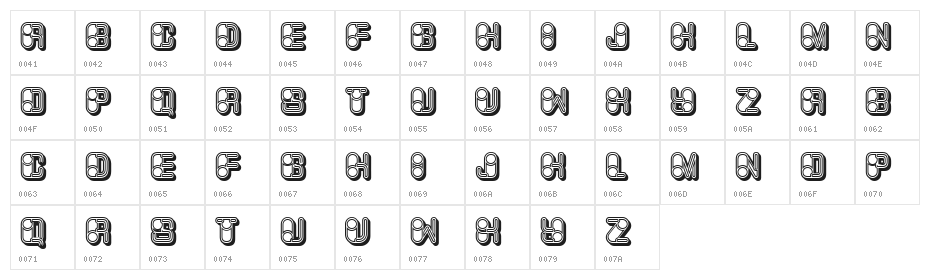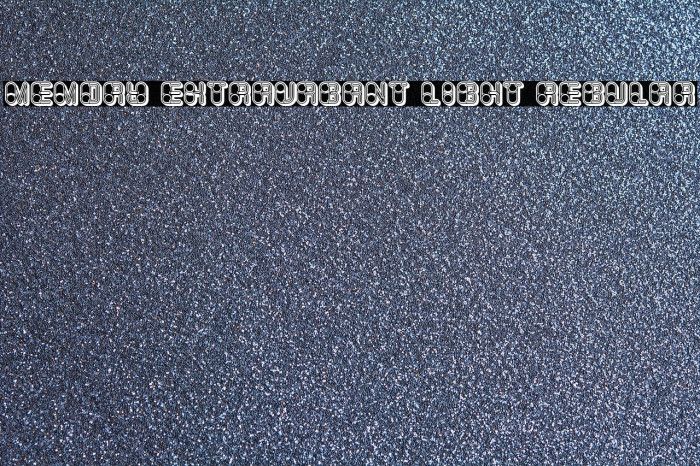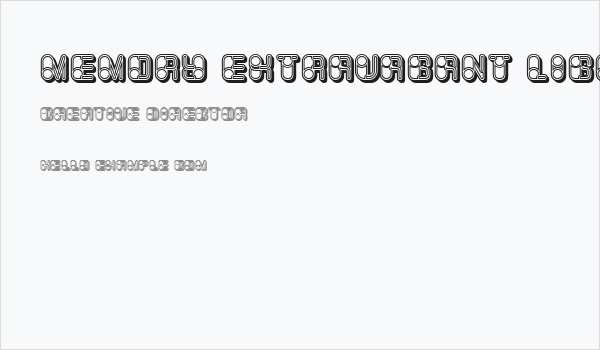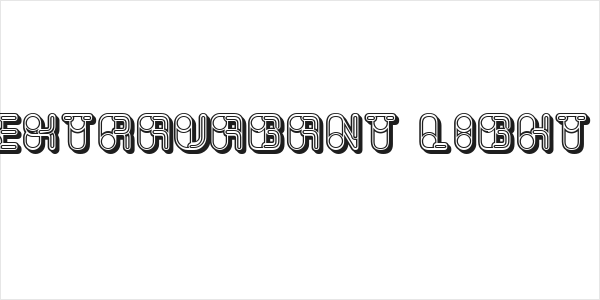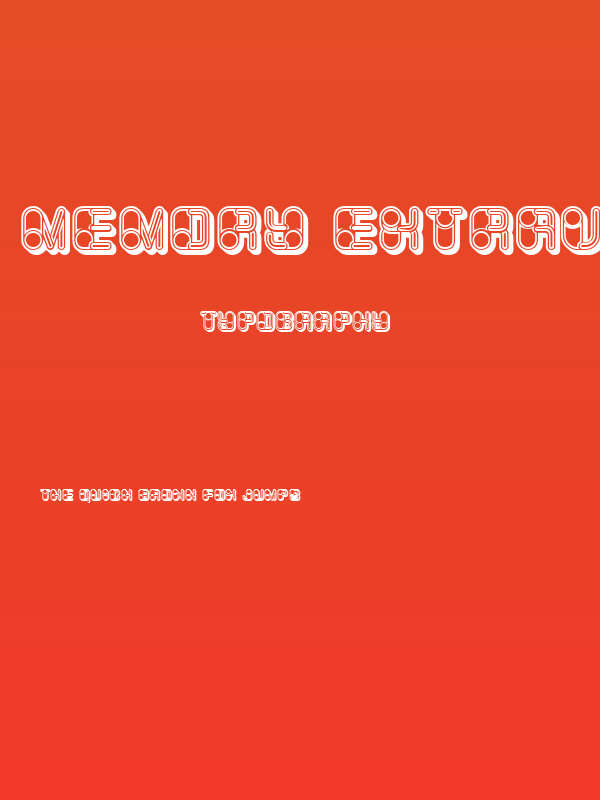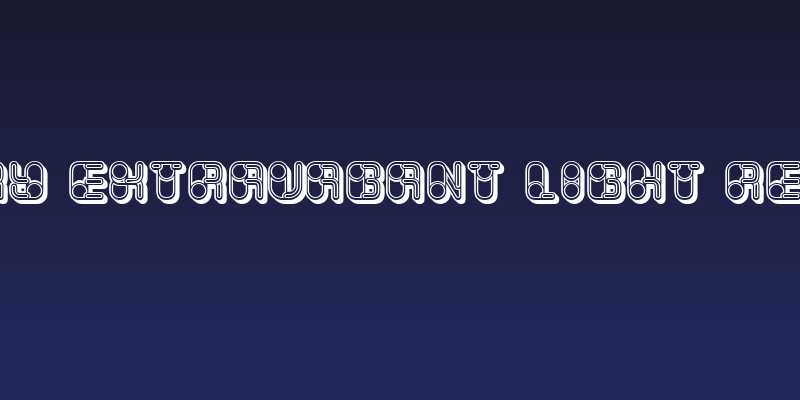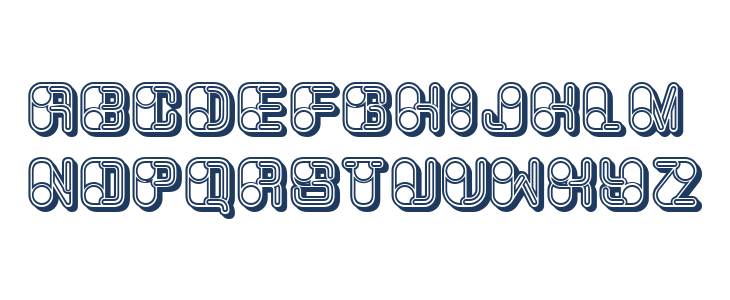
Memory Extravagant Light Regular Font
Memory Extravagant Light Regular Description
This font features a bold, decorative style with a unique, layered outline effect. Each character is designed with a double-line structure, creating a sense of depth and dimension. The letters are uppercase and have a geometric, almost futuristic appearance, with rounded edges and consistent stroke widths. The design is playful yet structured, making it suitable for eye-catching displays. The font's intricate detailing and bold presence make it ideal for projects that require a standout typographic element.
| Proposed Projects | Ideal for posters, logos, branding, and any project requiring a bold, attention-grabbing typeface. |